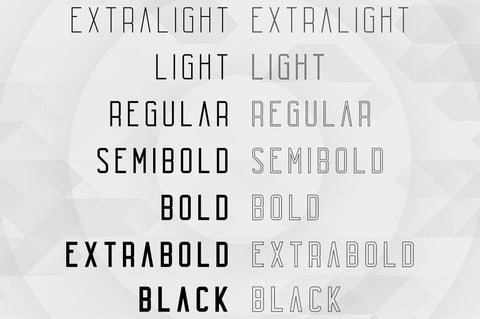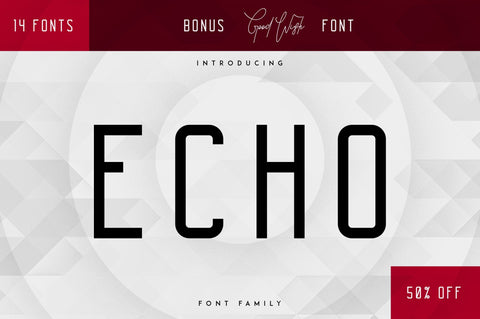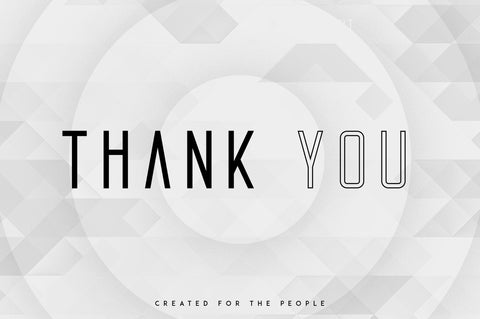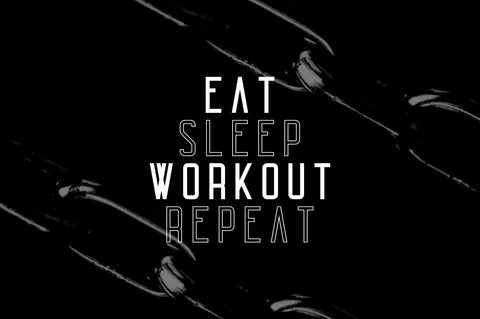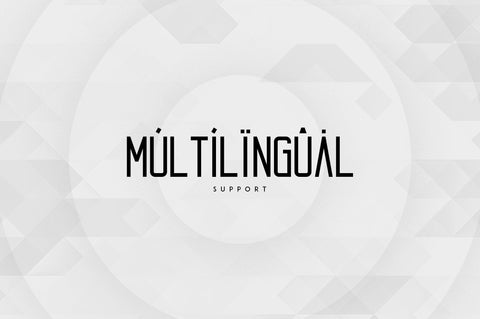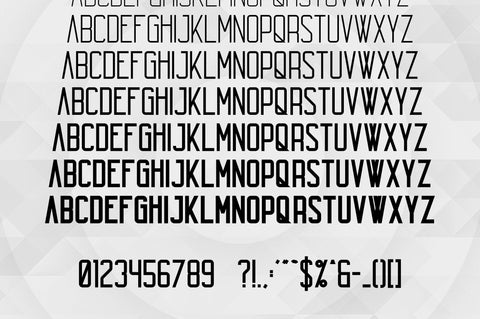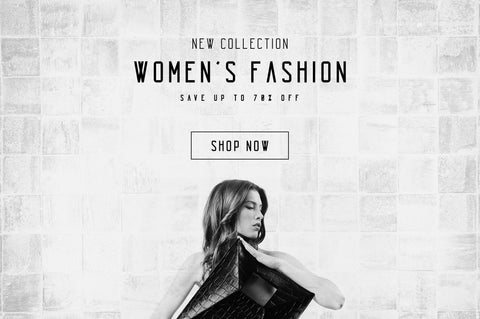
Echo 14 Font Family + Bonus
Echo is bold, powerful sans serif typeface with 14 fonts and multilingual support. It's a very versatile font that works great in large and small sizes. Echo is perfect for branding projects, home-ware designs, product packaging, magazine headers - or simply as a stylish text overlay to any background image.
Introducing Echo font family
Echo is bold, powerful sans serif typeface with 14 fonts and multilingual support. It's a very versatile font that works great in large and small sizes.
Echo is perfect for branding projects, home-ware designs, product packaging, magazine headers - or simply as a stylish text overlay to any background image.
• Uppercase,lowercase,numeral,punctuation & Symbol
• Multilingual
• ExtraLight filled and outline
• Light filled and outline
• Regular filled and outline
• SemiBold filled and outline
• Bold filled and outline
• ExtraBold filled and outline
• Black filled and outline